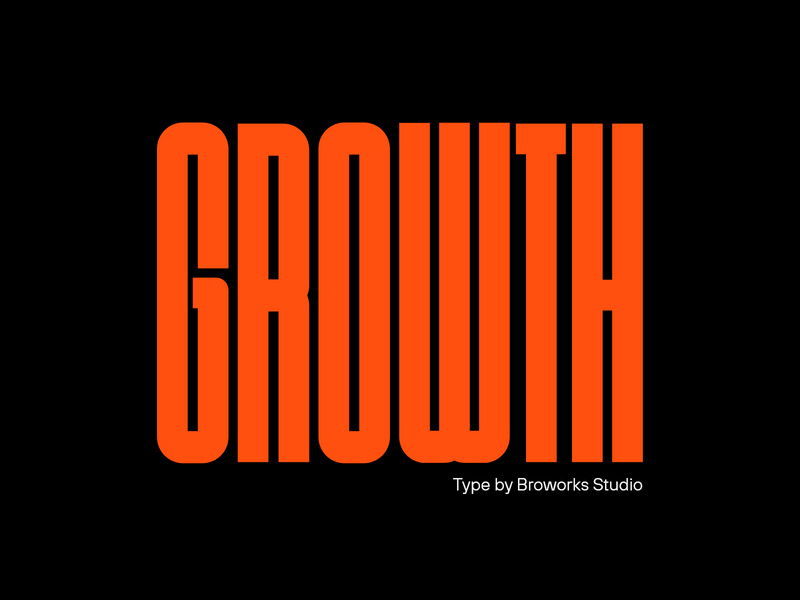
Growth Font Free Download - The growth font has been downloaded 3,265 times. Growth letters are stable in stature but really. B bush forest by wepfont. Web download the growth font by productype. Growth font is a condensed sans serif typeface. Web g growe by wepfont.
Growth letters are stable in stature but really. Growth font is a condensed sans serif typeface. B bush forest by wepfont. The growth font has been downloaded 3,265 times. Web download the growth font by productype. Web g growe by wepfont.
B bush forest by wepfont. Web g growe by wepfont. The growth font has been downloaded 3,265 times. Growth font is a condensed sans serif typeface. Growth letters are stable in stature but really. Web download the growth font by productype.
Growth letters are stable in stature but really. Web g growe by wepfont. The growth font has been downloaded 3,265 times. Web download the growth font by productype. B bush forest by wepfont.
The growth font has been downloaded 3,265 times. Growth letters are stable in stature but really. Growth font is a condensed sans serif typeface. Web download the growth font by productype. Web g growe by wepfont.
Web g growe by wepfont. Growth font is a condensed sans serif typeface. Web download the growth font by productype. The growth font has been downloaded 3,265 times. B bush forest by wepfont.
The growth font has been downloaded 3,265 times. B bush forest by wepfont. Web download the growth font by productype. Growth font is a condensed sans serif typeface. Web g growe by wepfont.
Web download the growth font by productype. The growth font has been downloaded 3,265 times. B bush forest by wepfont. Growth letters are stable in stature but really. Growth font is a condensed sans serif typeface.
Web g growe by wepfont. Growth letters are stable in stature but really. Web download the growth font by productype. Growth font is a condensed sans serif typeface. B bush forest by wepfont.
Web g growe by wepfont. Web download the growth font by productype. The growth font has been downloaded 3,265 times. Growth letters are stable in stature but really. B bush forest by wepfont.
Growth font is a condensed sans serif typeface. Growth letters are stable in stature but really. The growth font has been downloaded 3,265 times. Web g growe by wepfont. Web download the growth font by productype.
Growth font is a condensed sans serif typeface. The growth font has been downloaded 3,265 times. B bush forest by wepfont. Growth letters are stable in stature but really. Web g growe by wepfont.
Growth Font Is A Condensed Sans Serif Typeface.
Growth letters are stable in stature but really. Web download the growth font by productype. The growth font has been downloaded 3,265 times. B bush forest by wepfont.